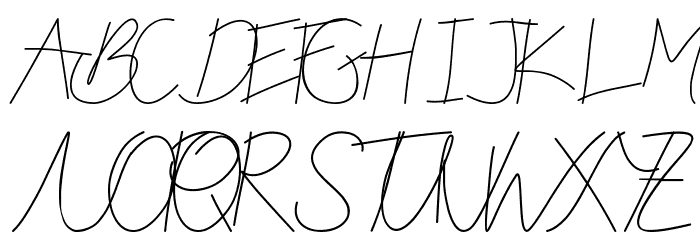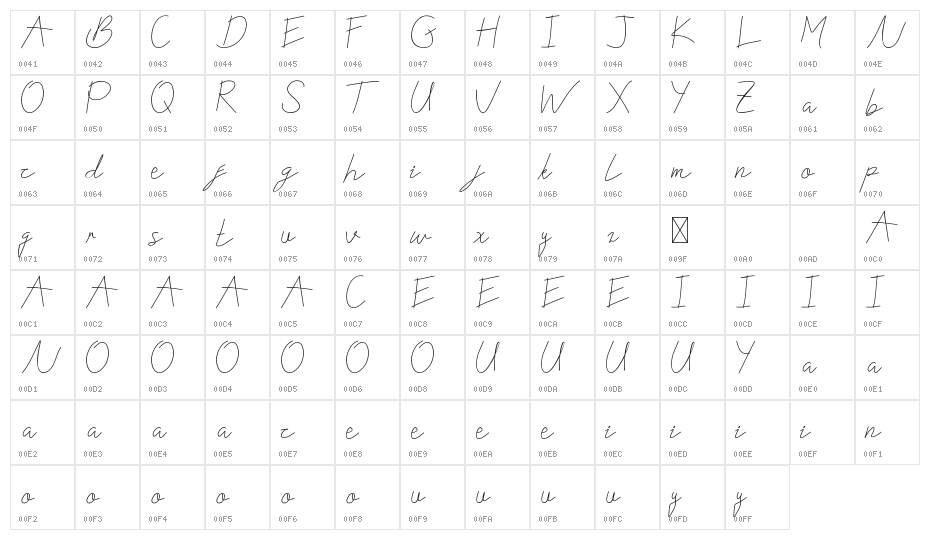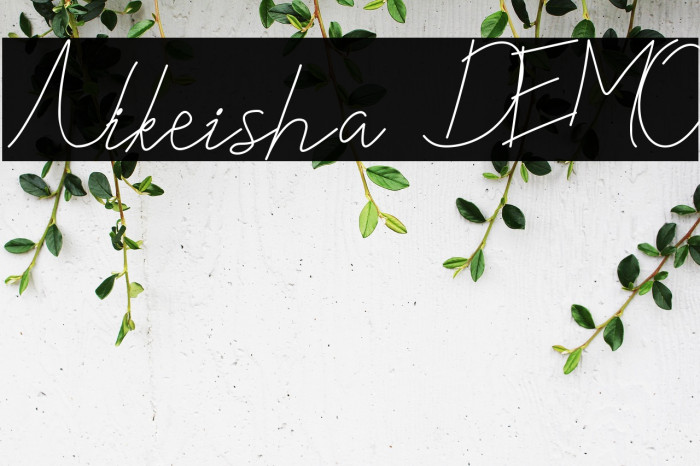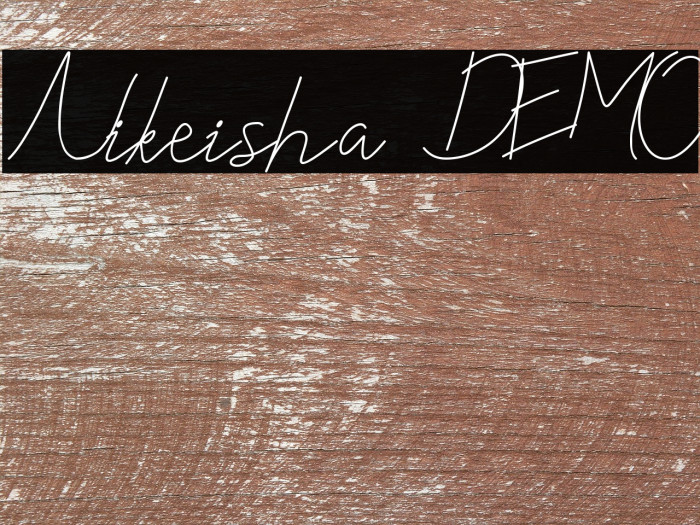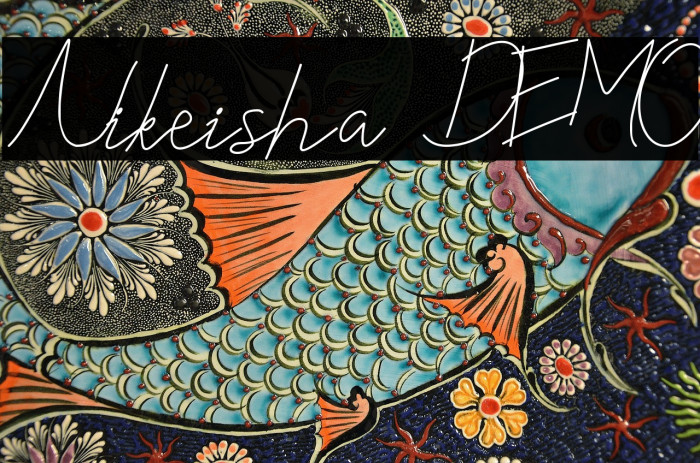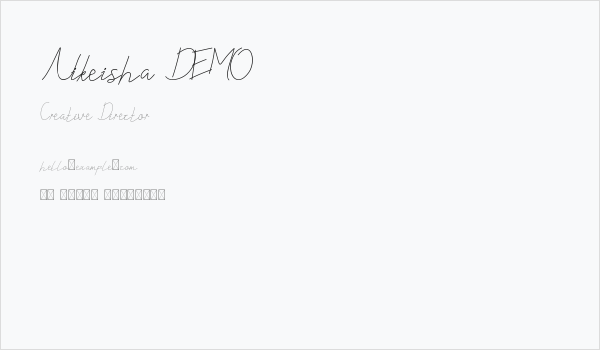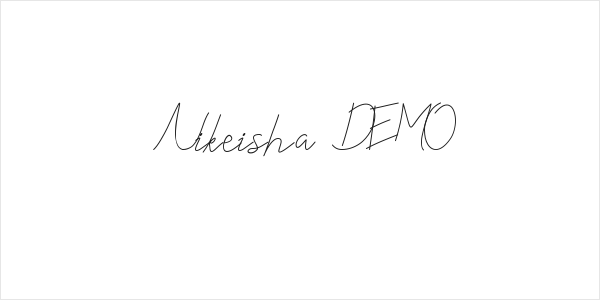
Nikeisha DEMO Font
Nikeisha DEMO Description
This font features a distinctive handwritten style with a playful and casual appearance. The letters are characterized by their elongated and slightly slanted forms, giving them a dynamic and fluid look. The strokes are thin and consistent, contributing to a light and airy feel. The uppercase and lowercase letters maintain a cohesive style, with some letters displaying unique loops and curves that add to the font's charm. The numbers and special characters are crafted with the same attention to detail, ensuring a harmonious overall design.
Overall StyleCasual
Use CaseLogos, Invitations, Greeting Cards
Proposed ProjectsIdeal for personal branding, invitations, greeting cards, and creative projects that require a casual and friendly touch.